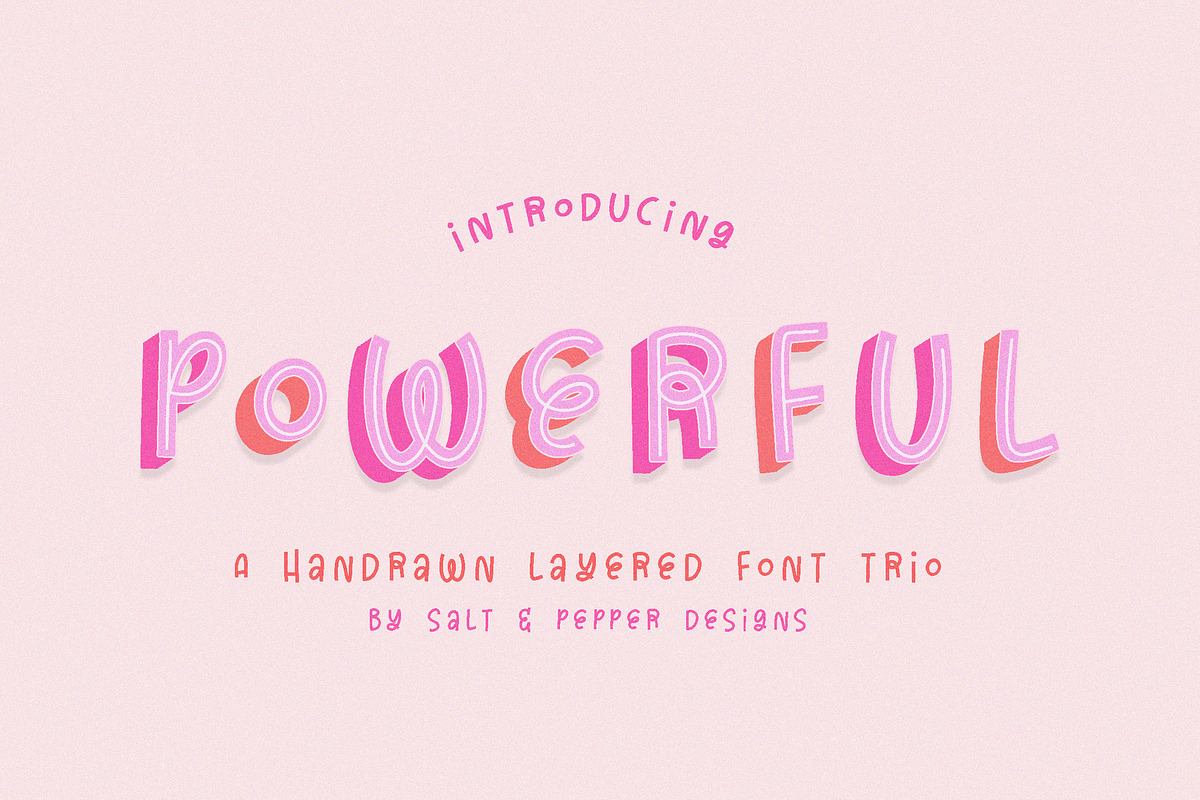
Powerful Layered Font Free Download is a dynamic and bold typeface designed for maximum visual impact. Please note: you must purchase this font for commercial use, but you can test it through a free download. With its multi-layered design, this font lets you stack styles for stunning 3D effects, shadows, and depth—perfect for posters, headlines, logos, and merchandise.
Whether you’re going for a retro comic book vibe or a modern streetwear look, Powerful Layered Font Free Download gives you the creative flexibility to stand out. Its attention-grabbing design is ideal for projects that demand a strong presence and playful energy. Fully compatible with Adobe Illustrator, Photoshop, and other popular design tools, this font makes it easy to create high-impact visuals. Try it out in your personal work and bring your typography to life with layers of personality and style.